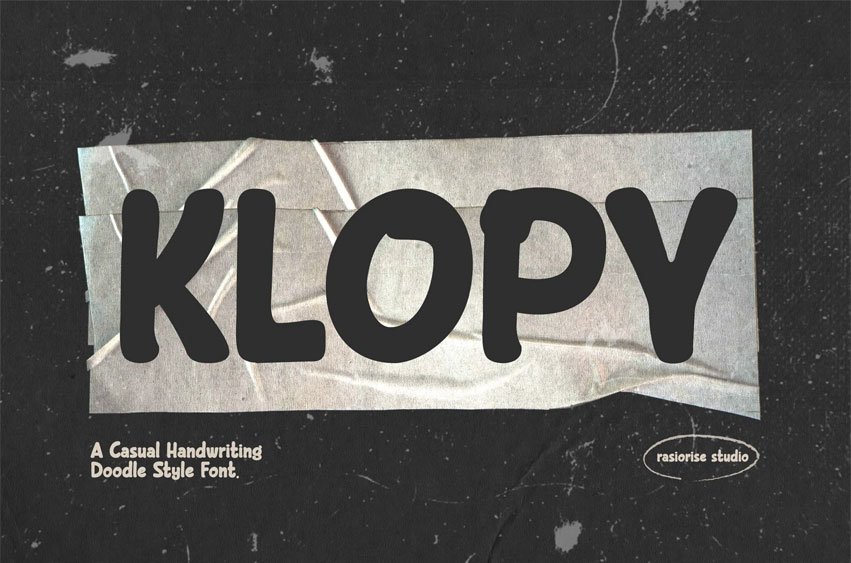
Klopy Font Casual Doodle Font has been released for those of you who are looking for a Handwritten Sans Serif Font. a Sans Serif font with several combinations to combine Pop and modern Hipster styles. Unleash your creativity with Klopy Font and let your great projects!.
Klopy font is perfect for Logotype, Book Cover, Gift Cards, Greeting Cards, Posters, Packaging Labels, and more.